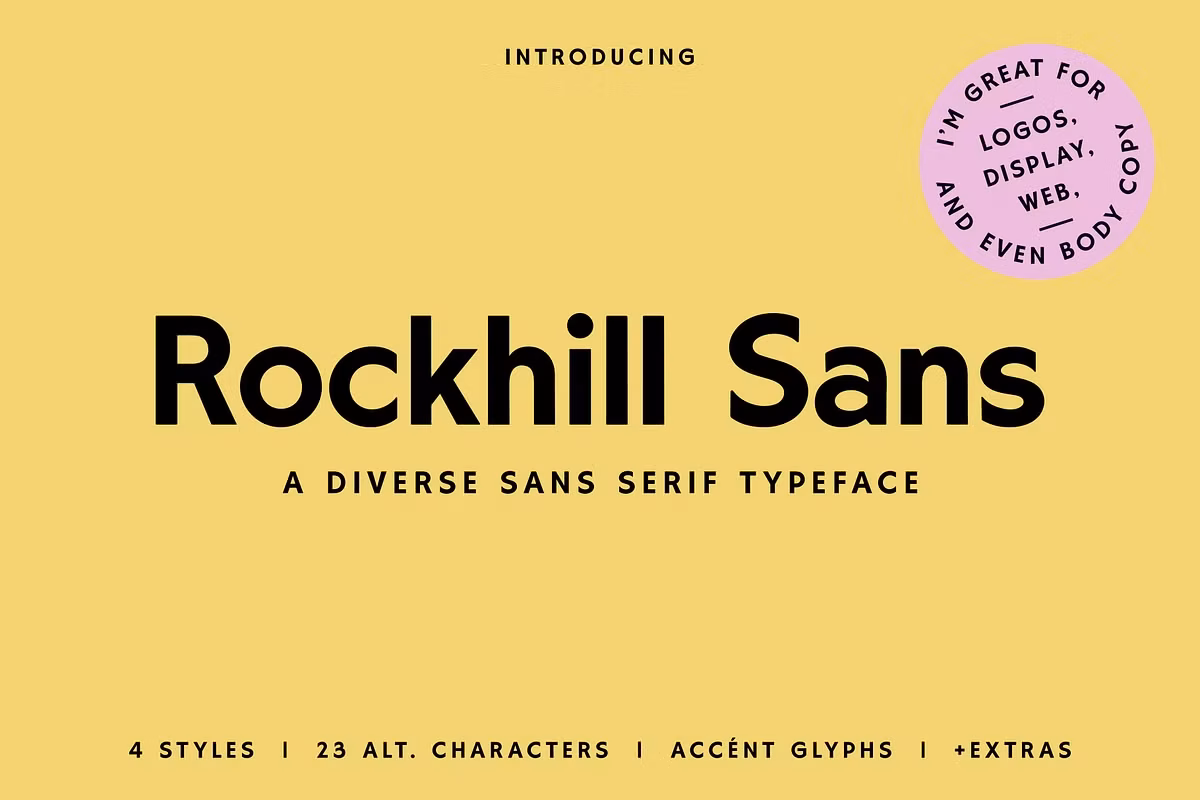
The Rockhill Sans: A Diverse Sans Serif Font Free Download is a modern and versatile typeface designed to offer clarity and style in various creative projects. Perfect for logos, websites, branding, editorial designs, and marketing materials, this font combines geometric precision with soft, rounded elements to create a friendly yet professional aesthetic.
With multiple weights and styles, Rockhill Sans adapts to a wide range of design needs. It includes uppercase and lowercase letters, numbers, punctuation, and multilingual support, making it suitable for both print and digital applications.